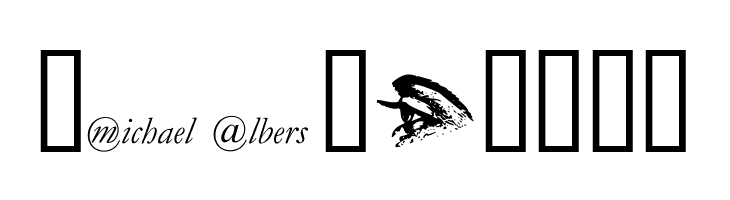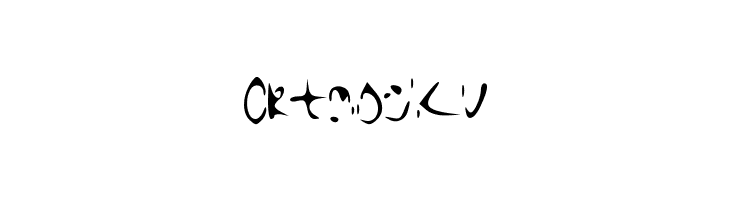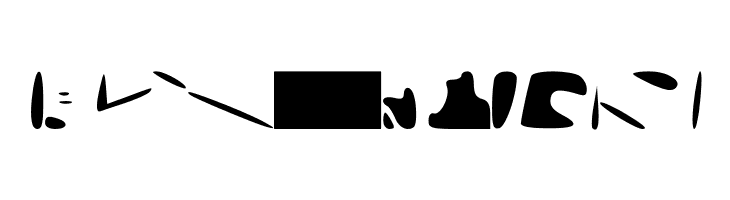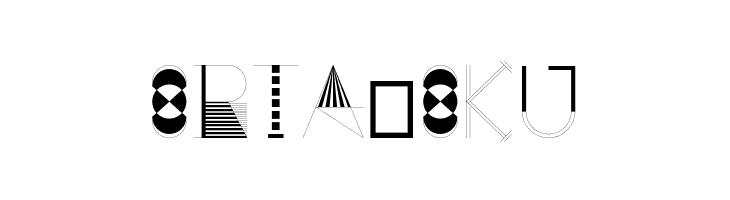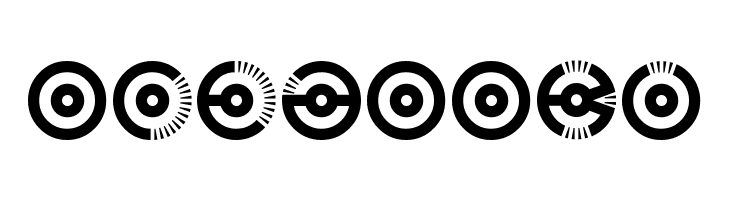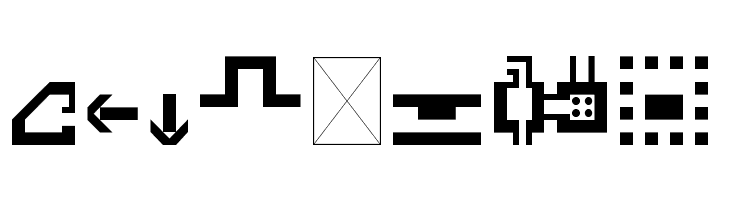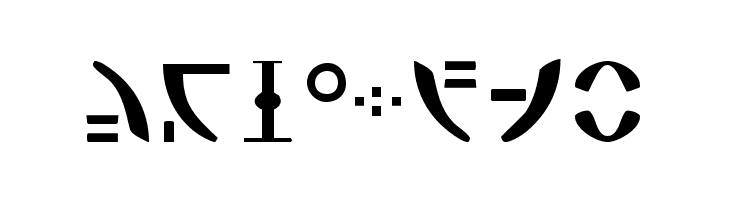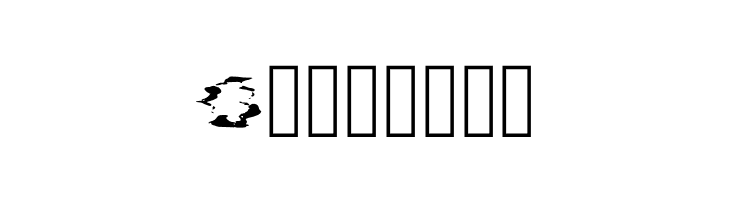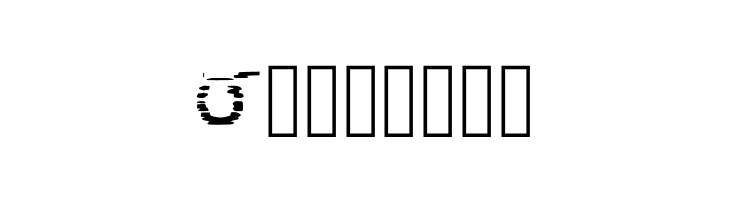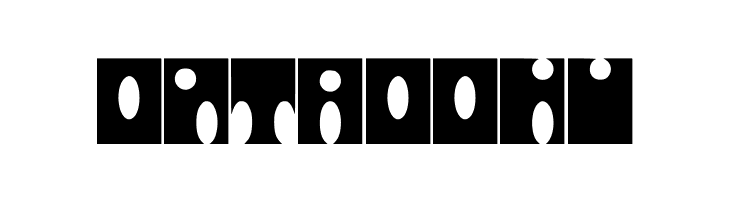
A bold, glitch-style font with a fragmented, digital appearance.
A bold, glitch-style font with a digital, fragmented appearance.
A bold, abstract font with geometric shapes and a futuristic aesthetic.
A collage-inspired decorative font with pictorial glyphs and surreal imagery.
An abstract, artistic font with fragmented and fluid letterforms.
An abstract, fragmented font with a modern, avant-garde style.
A modern decorative font with geometric and abstract design elements.
A futuristic and abstract font with circular and radial elements, ideal for modern designs.
A bold, abstract font with geometric shapes and a futuristic, alien-like appearance.